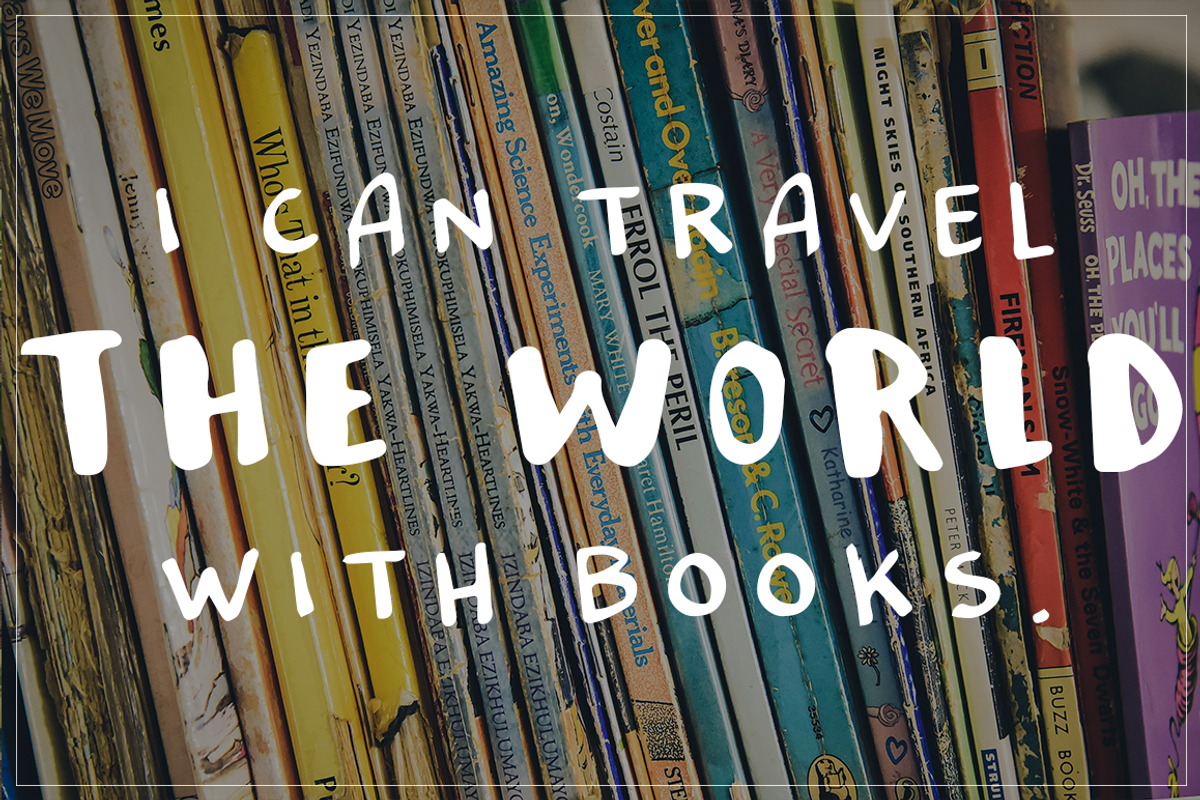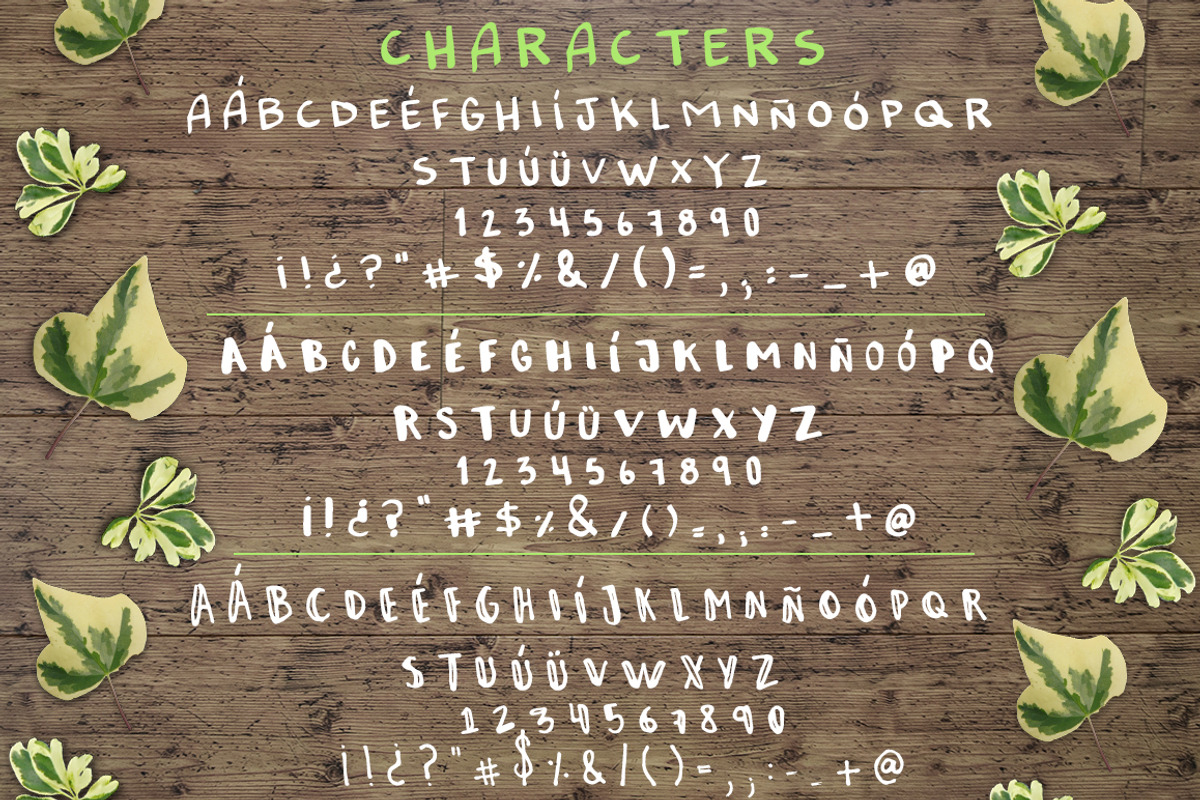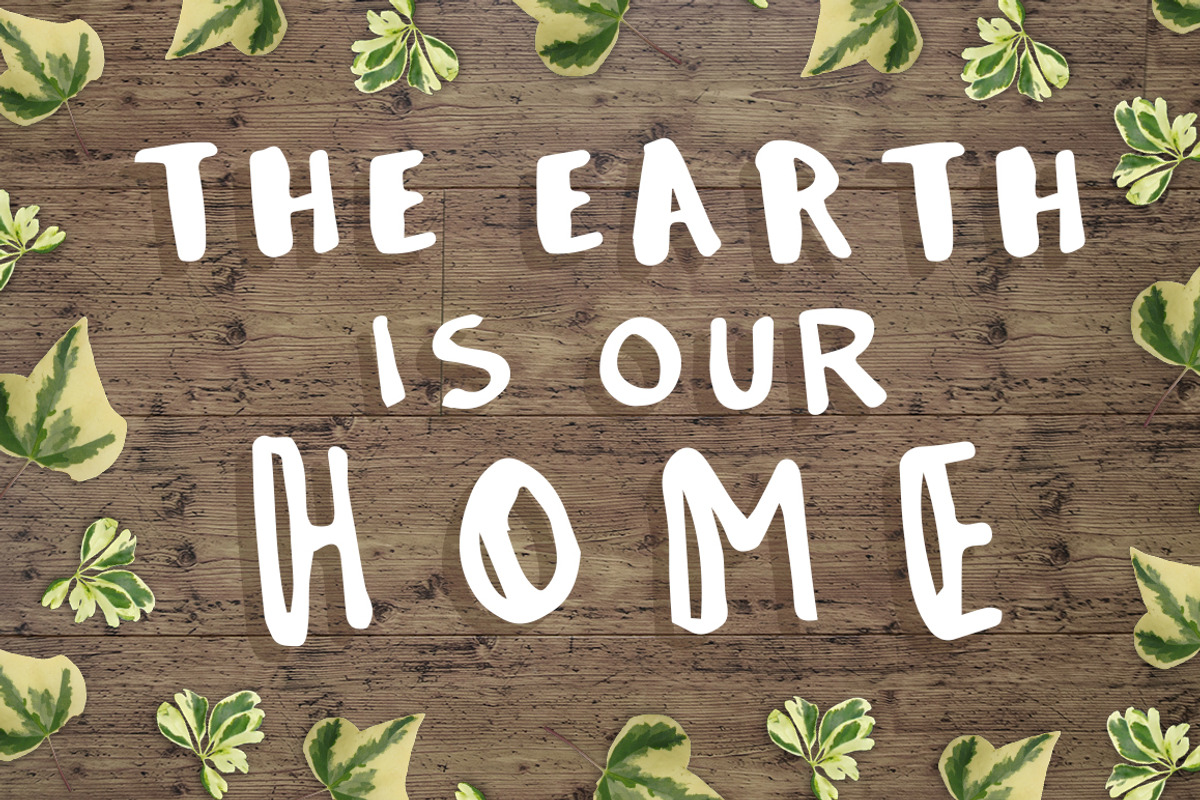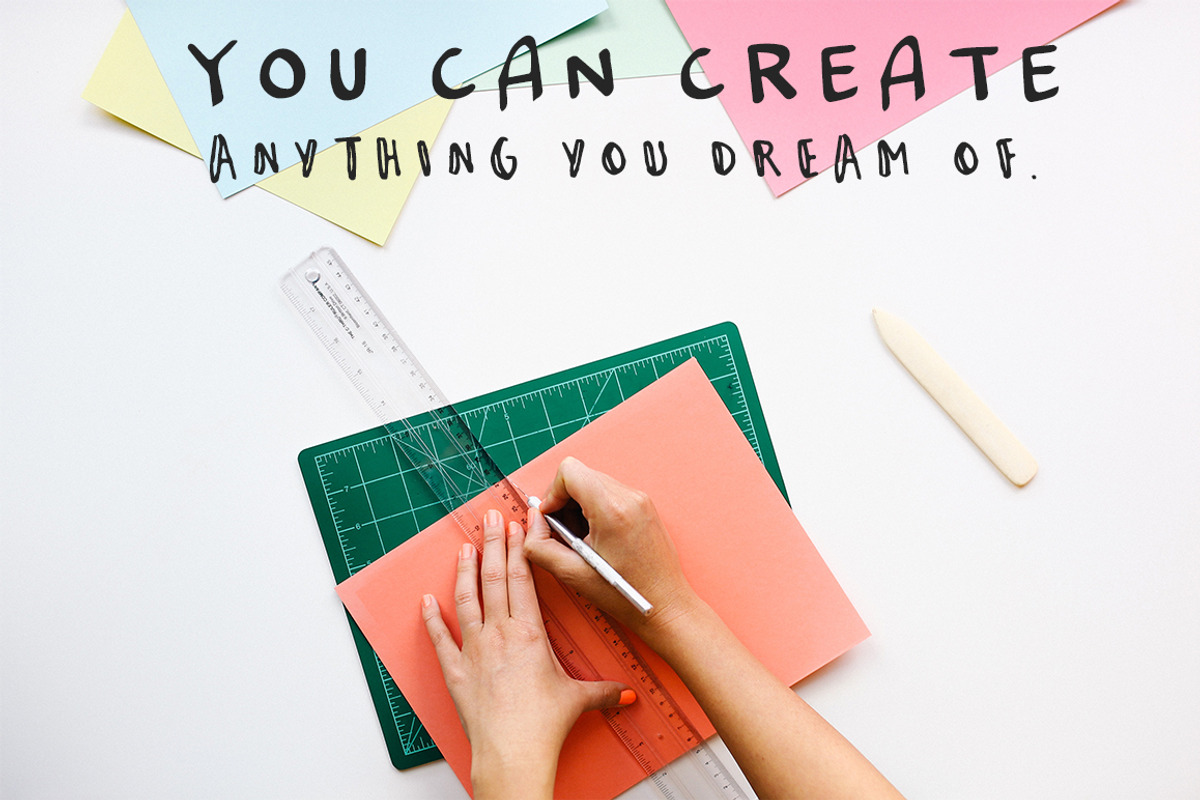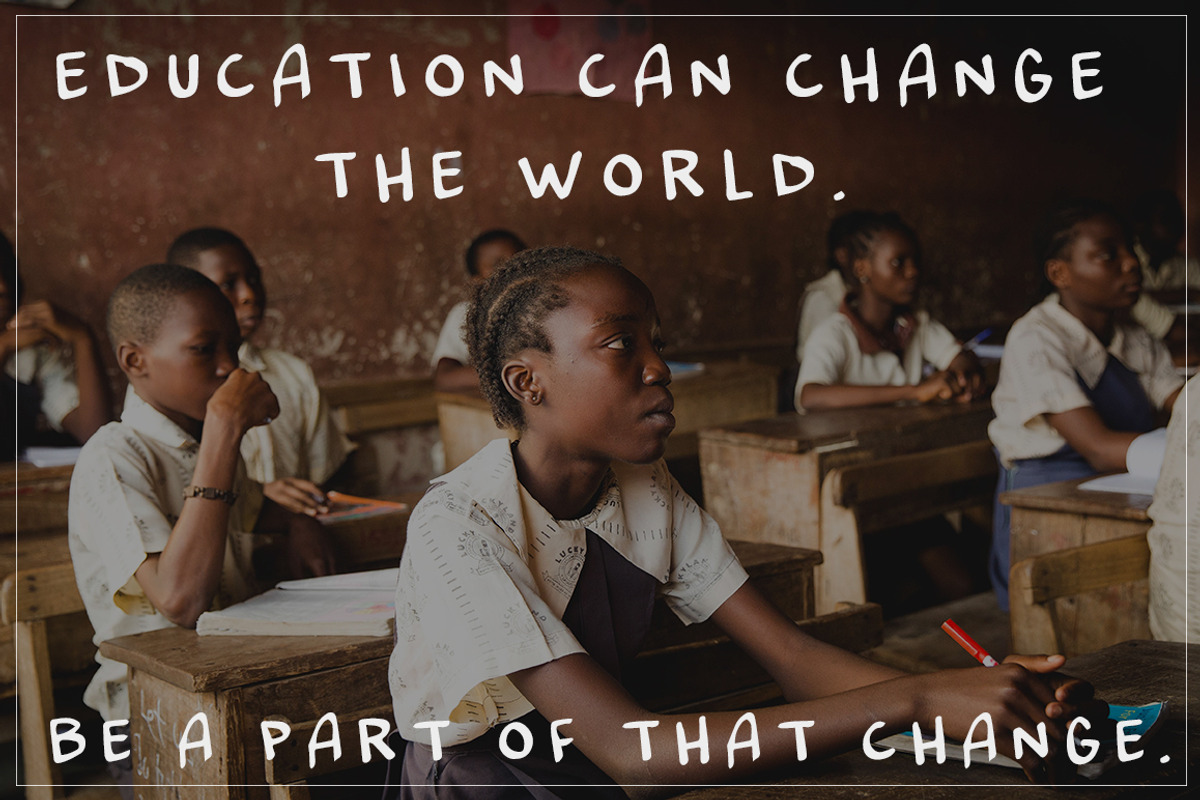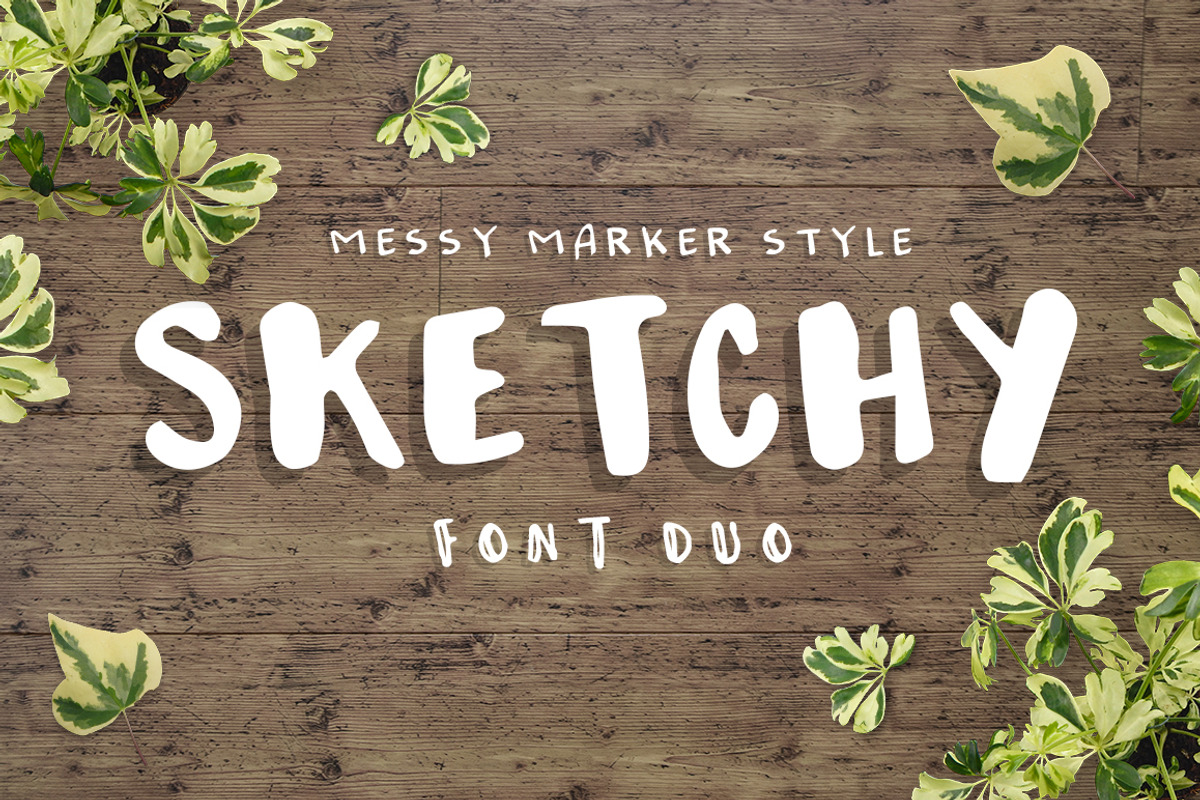
Sketchy - handmade font trio!
Sketchy - handmade font trio! by Andrea De Oliveira is a font selected for branding, posters, packaging, typography.
- An amazing font pack that contains three fonts with that handmade touch that the digital designs need!
Sketchy - handmade font trio! by Andrea De Oliveira fits naturally into Branding, posters, packaging, typography.